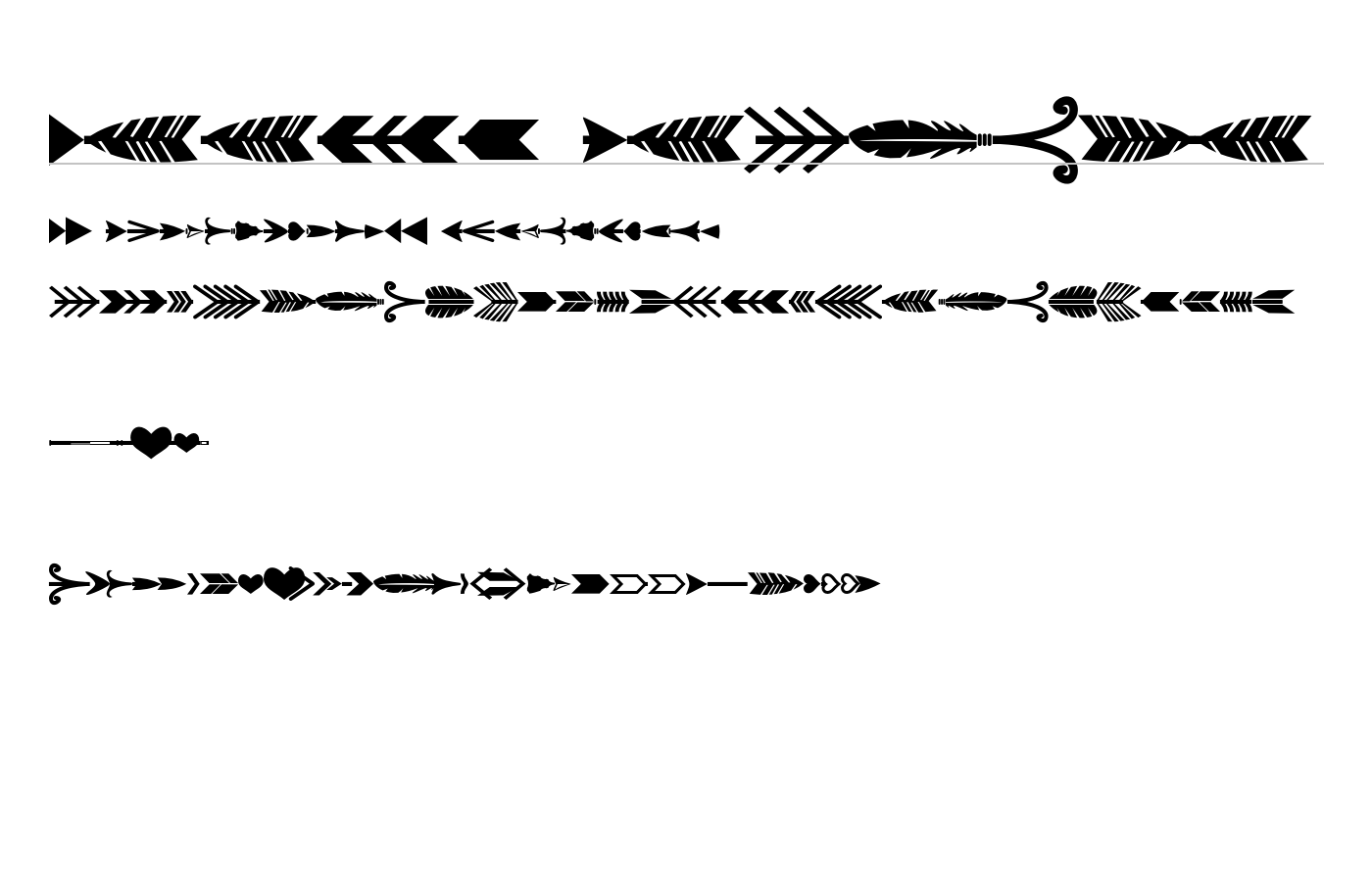
Arrow Crafter is a decorative dingbat font featuring a wide variety of stylized arrow motifs, ranging from bold geometric shapes to intricate feathered and curled designs. This font is perfect for adding a rustic, handcrafted, or adventurous flair to projects like invitations, logos, or decorative borders where unique, eye-catching embellishments are desired. Its playful mix of solid and detailed arrow elements makes it an ideal choice for creative crafts, outdoor-themed branding, and artistic layouts.
Arrow Crafter Font